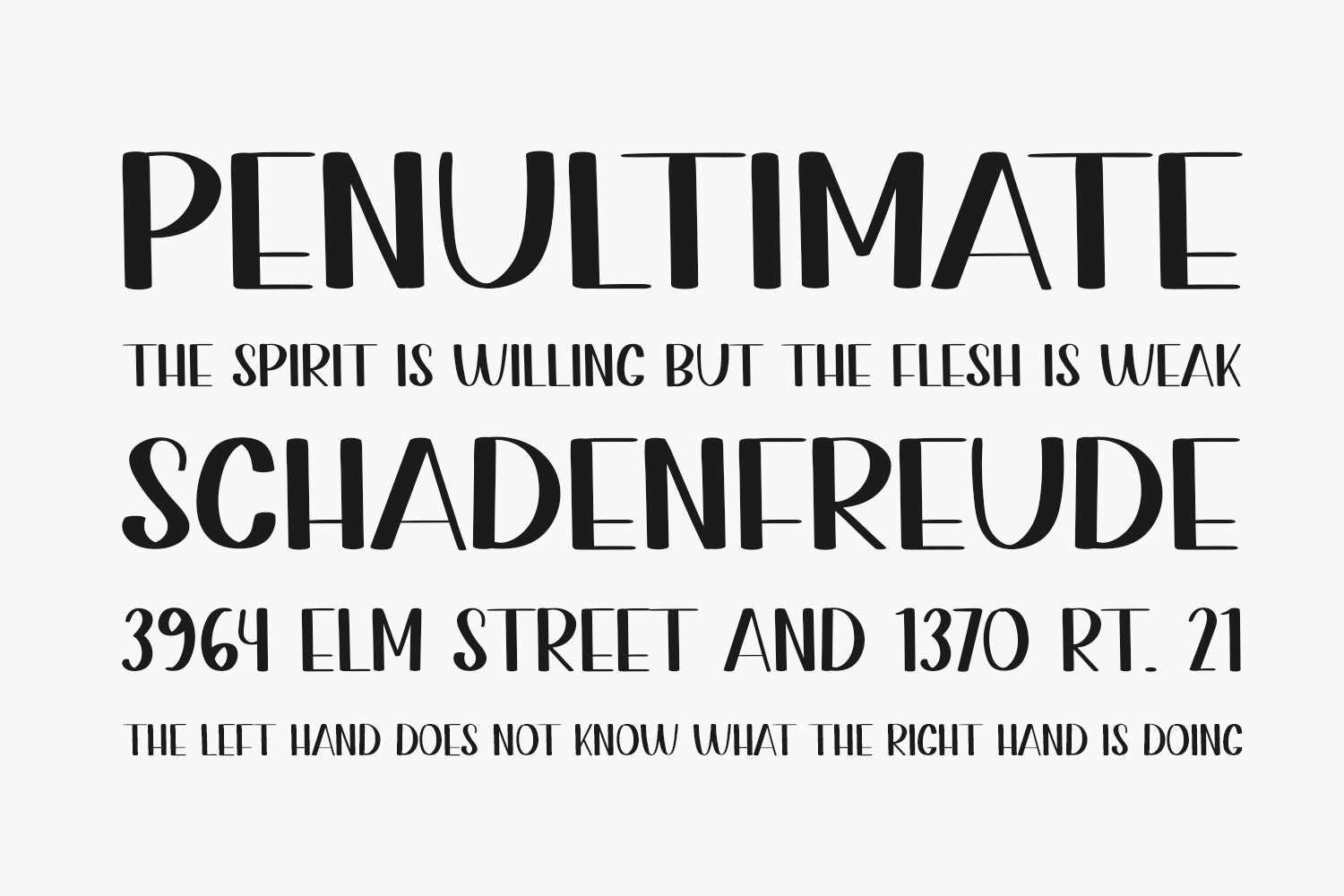
Discover Indoor School Free Font, a polished handwritten font perfect for various uses. Its clean and professional appearance, coupled with a casual charm, makes it adaptable to a range of projects. Download the font for free if you need it for personal use or purchase the full version for commercial use.
Designed by Scratchones